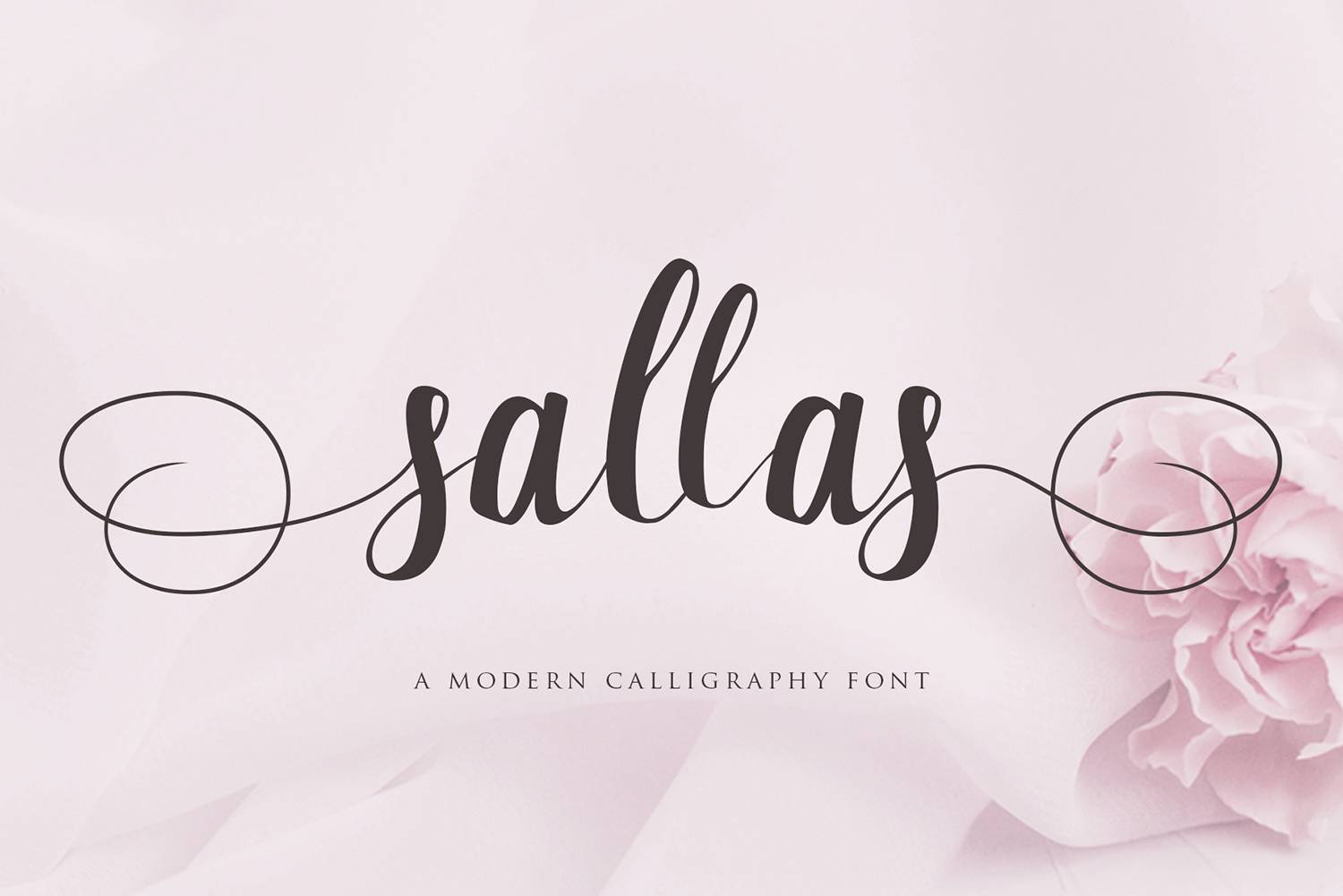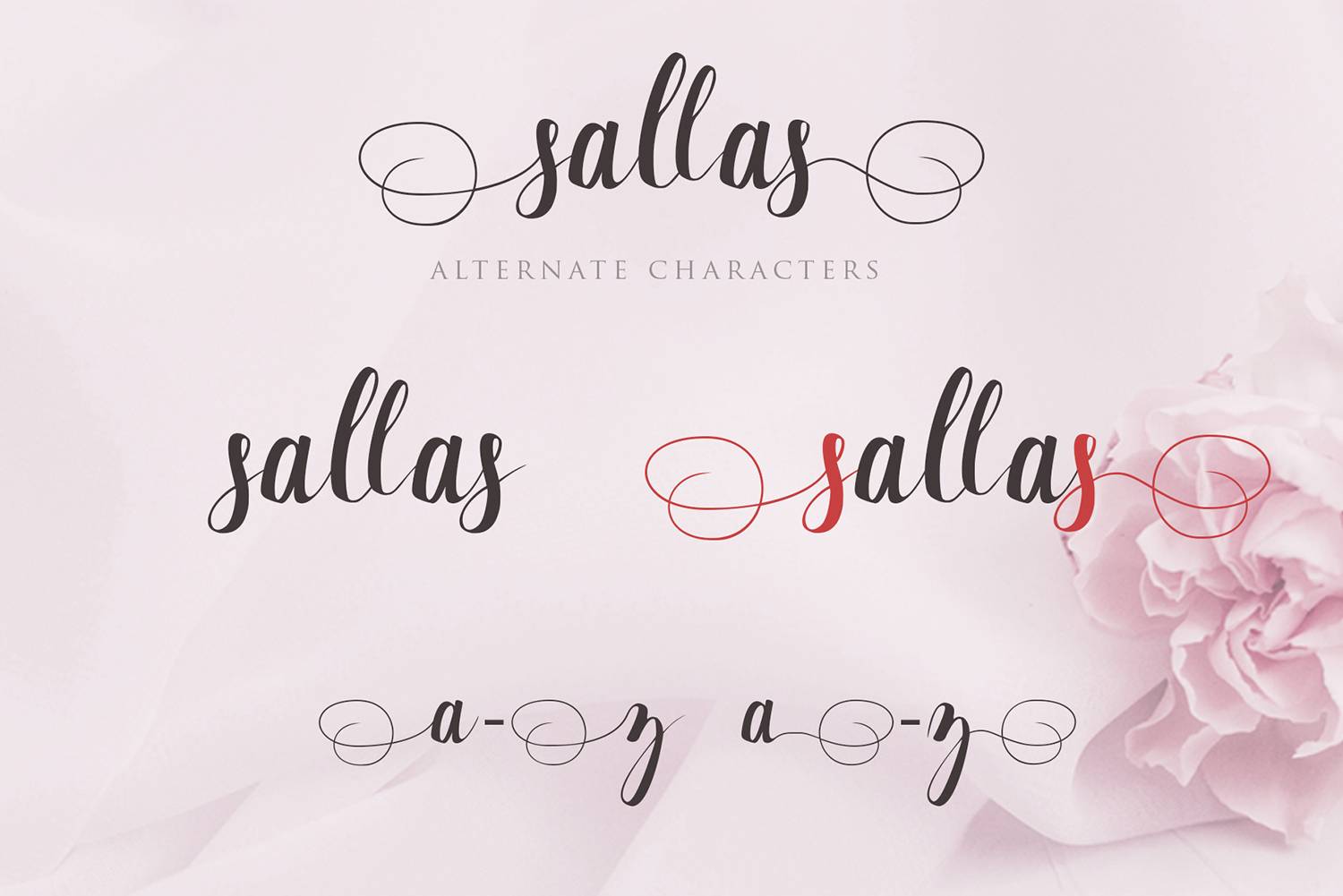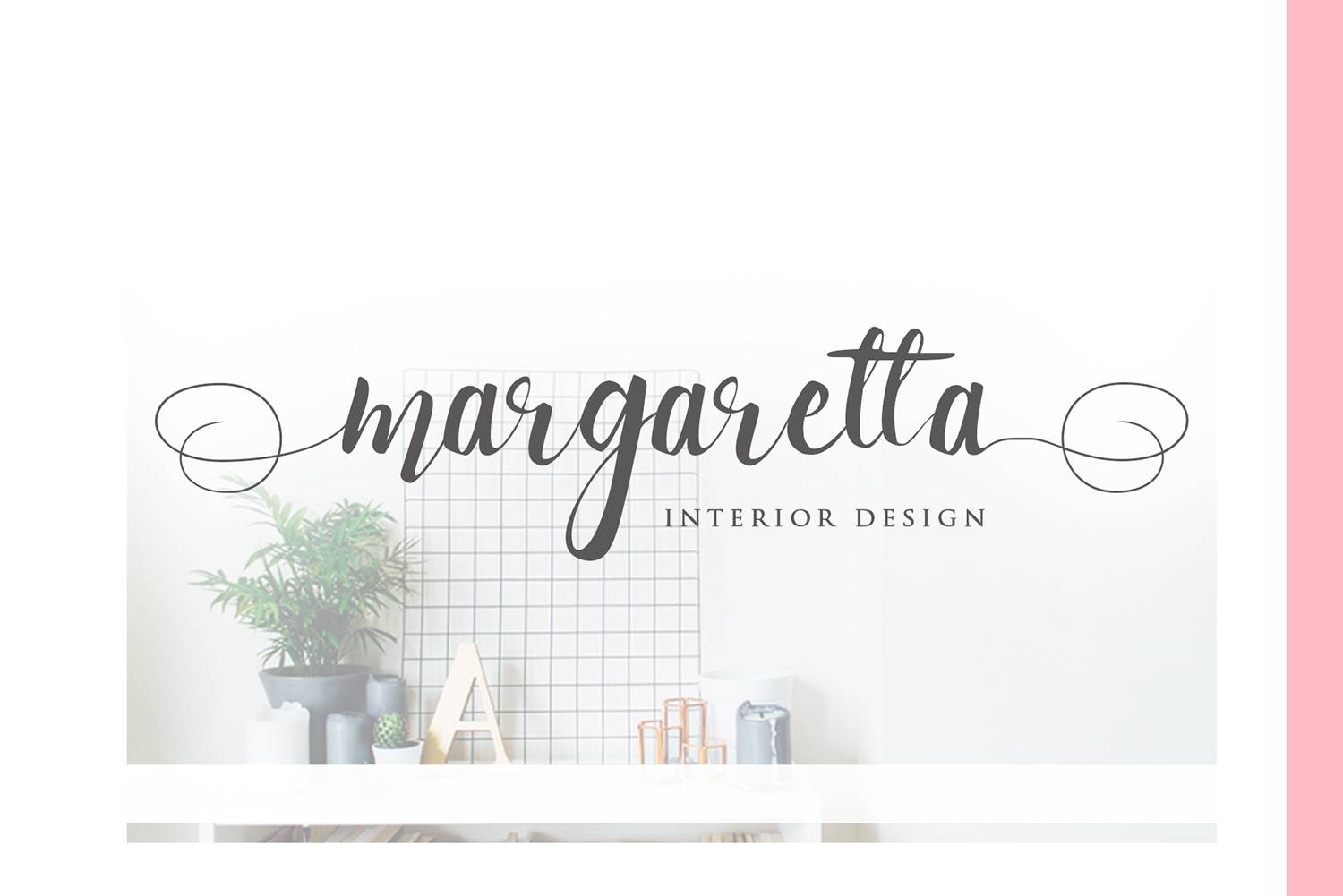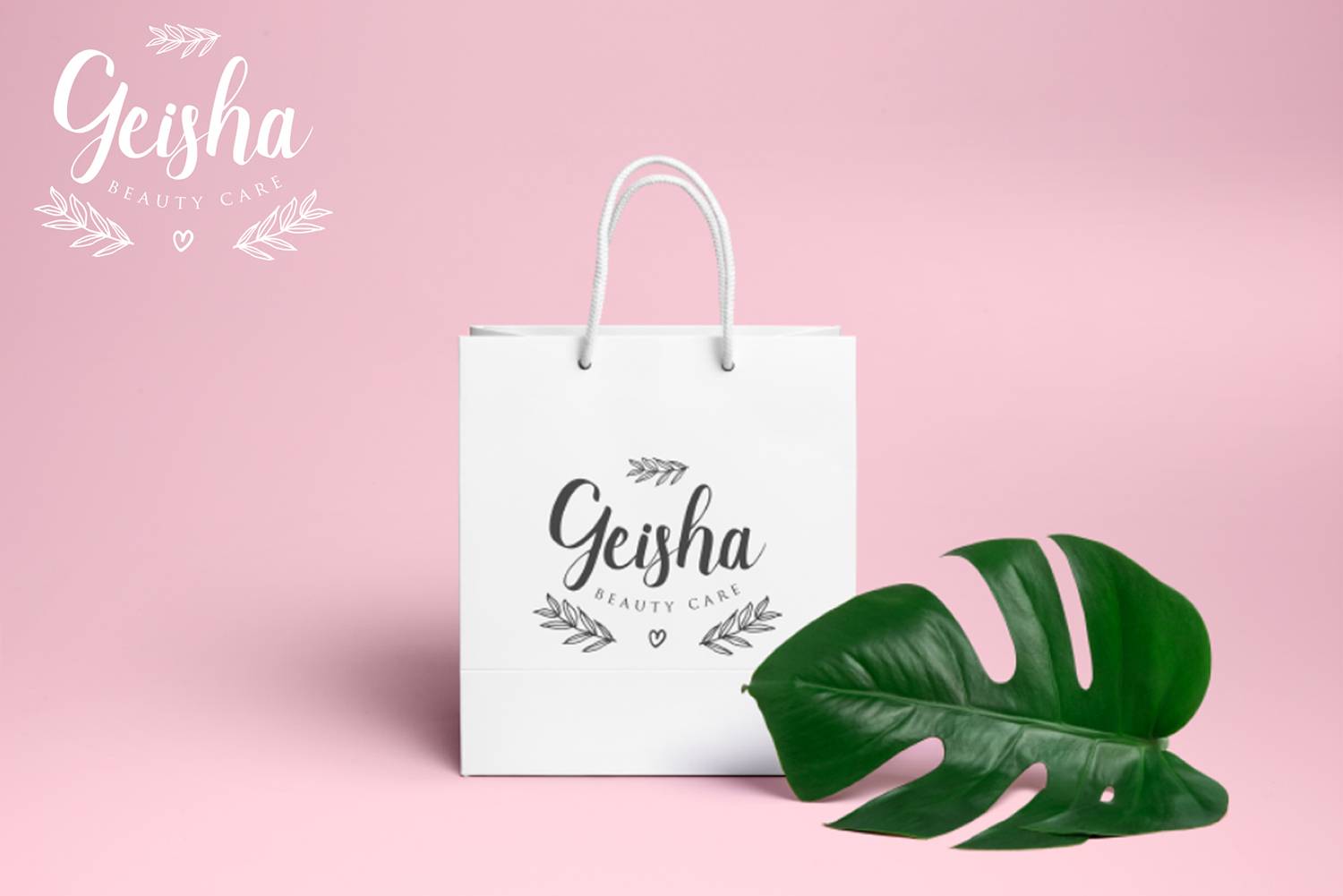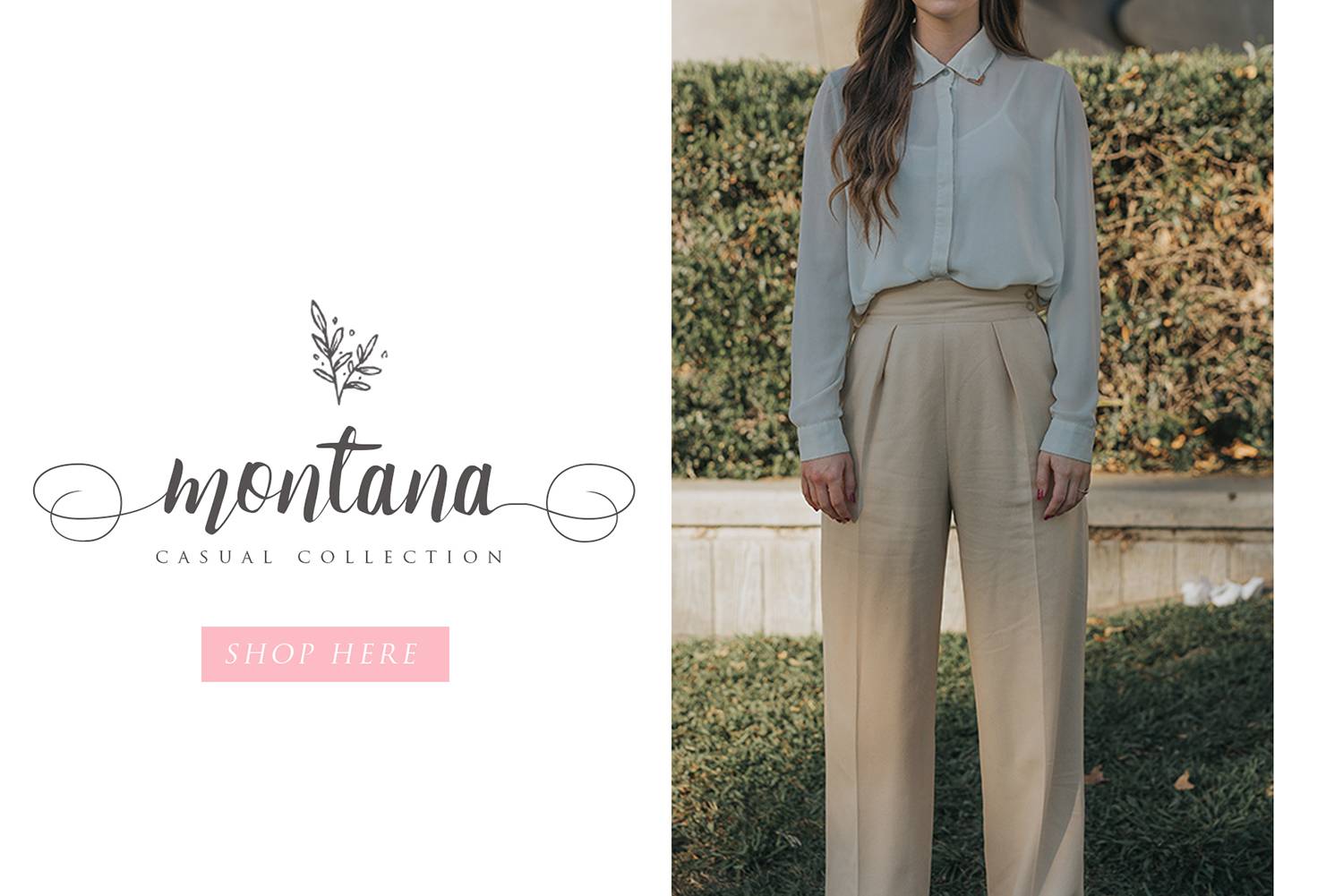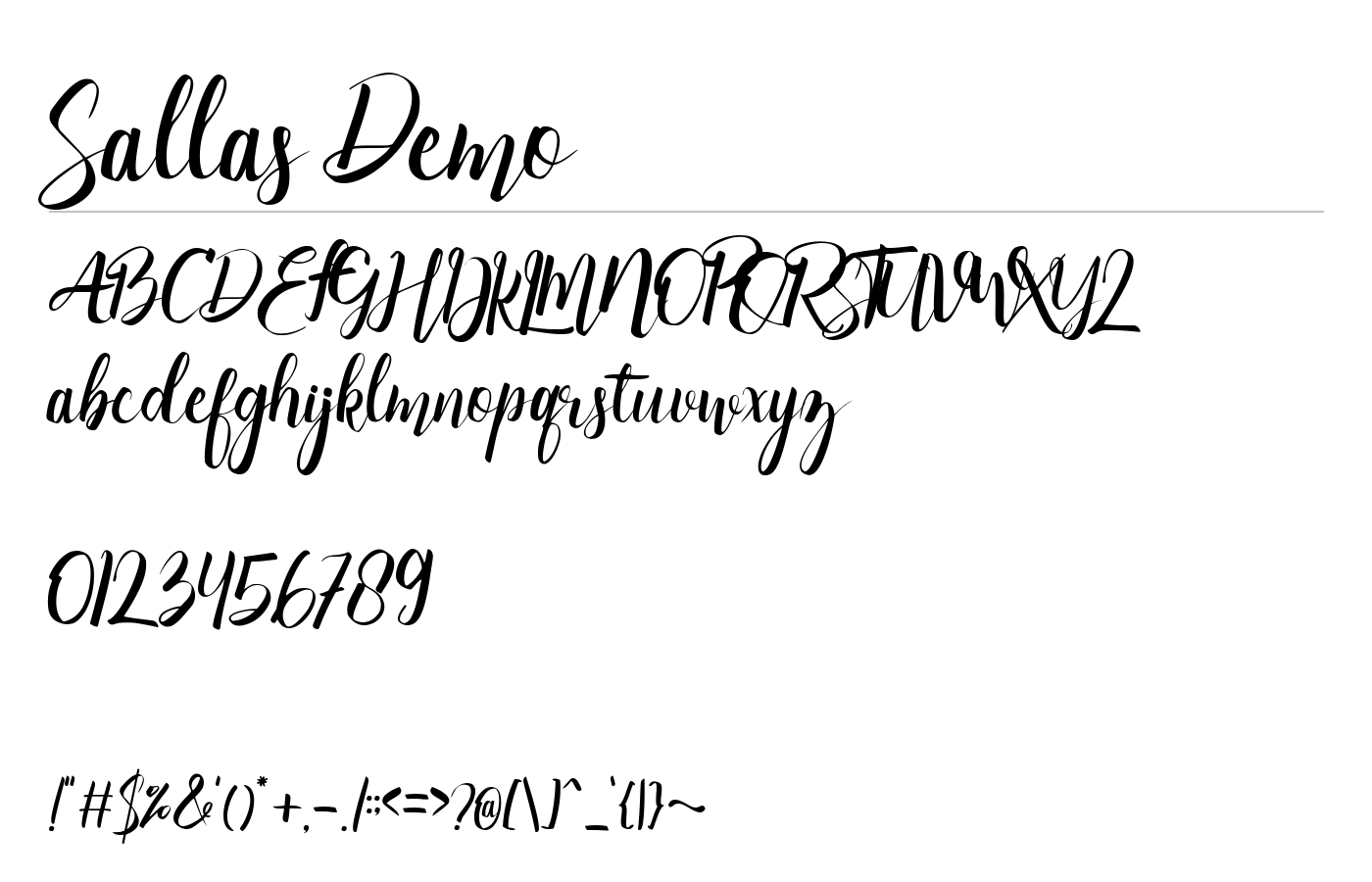
Sallas Font is an elegant script typeface characterized by its smooth, fluid strokes and stylish calligraphic flair. Its tall, flowing letterforms with varying stroke widths give it a sophisticated yet approachable personality, making it ideal for wedding invitations, branding, and other creative projects that need a graceful, hand-crafted touch. This font works beautifully in headlines or decorative text where a refined and artistic look is desired.
Sallas Font
About Sallas Font
| Font family | Sallas Font |
| Designer | Sabr Creative Studio |